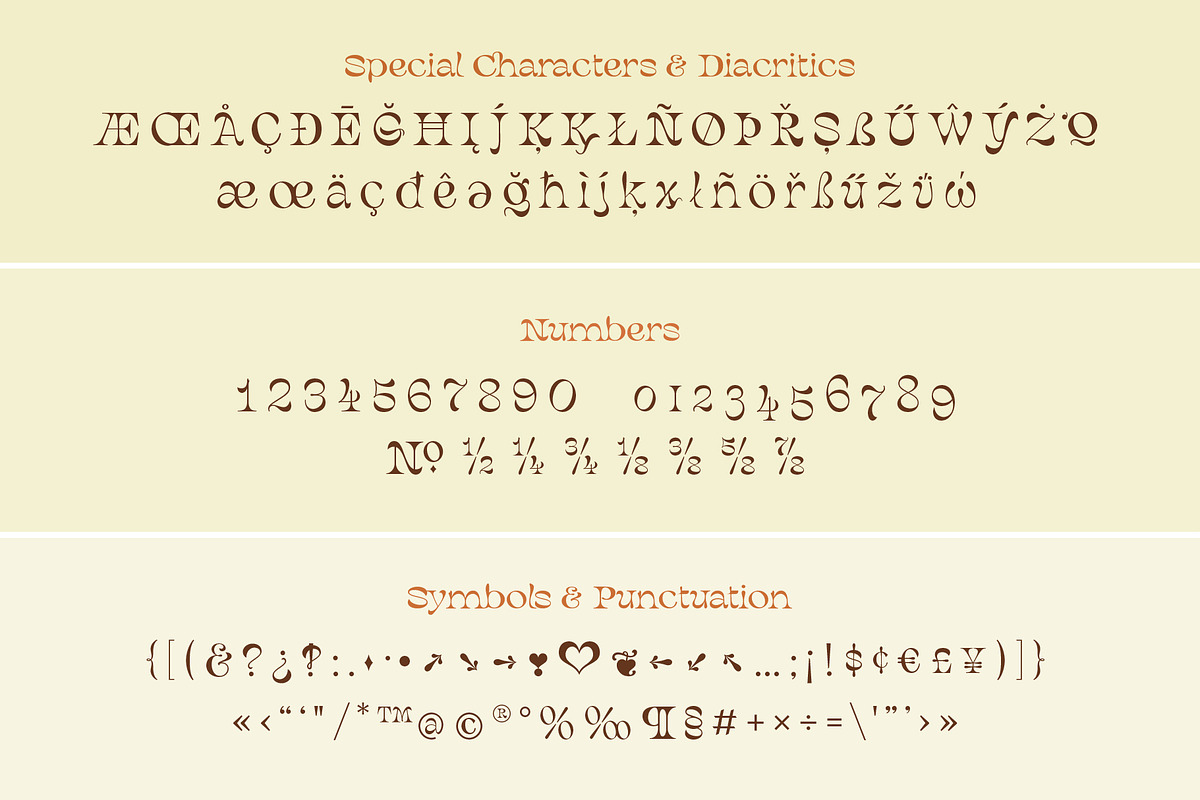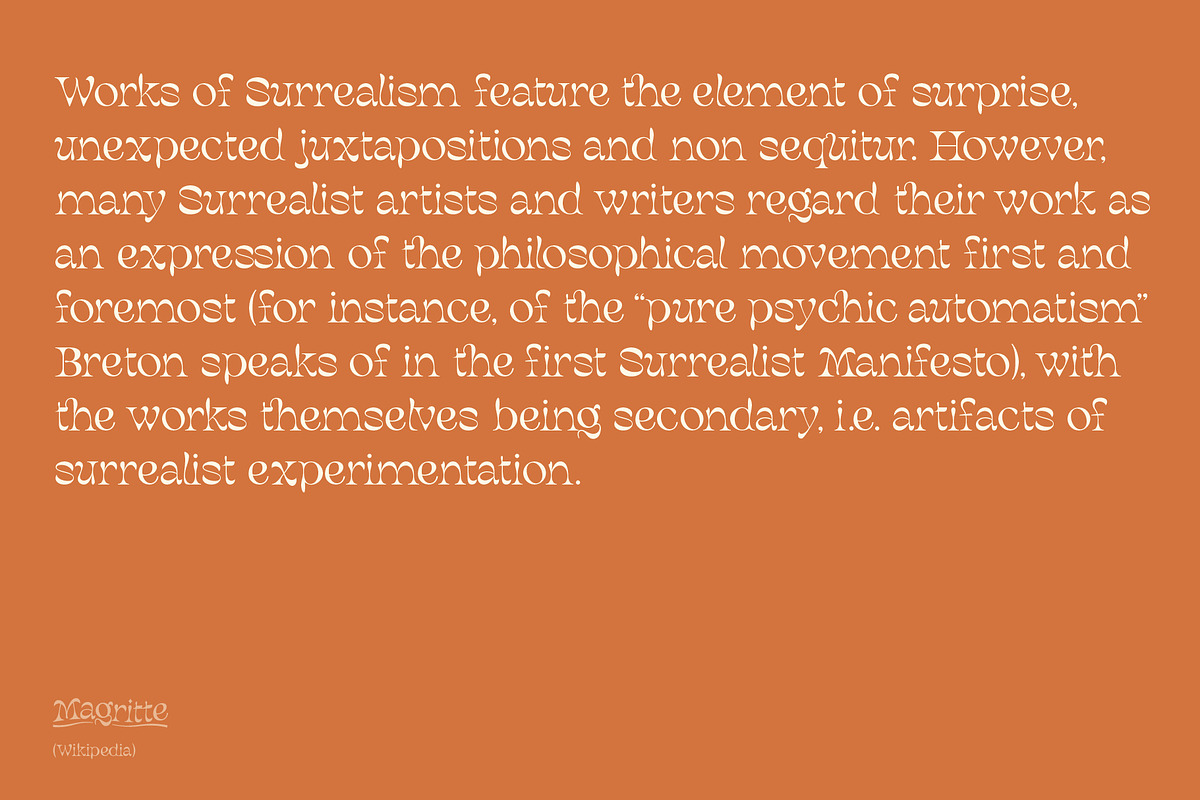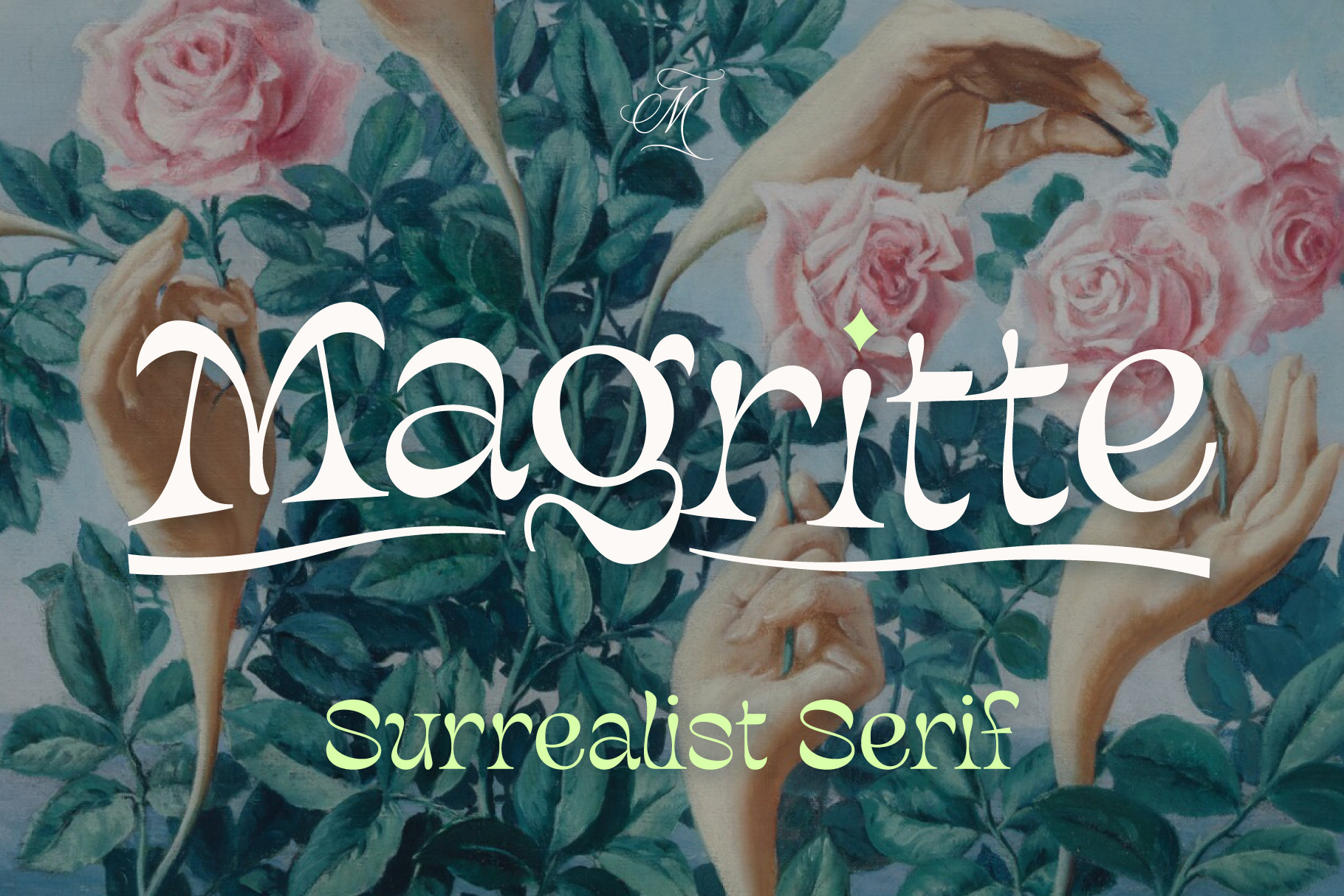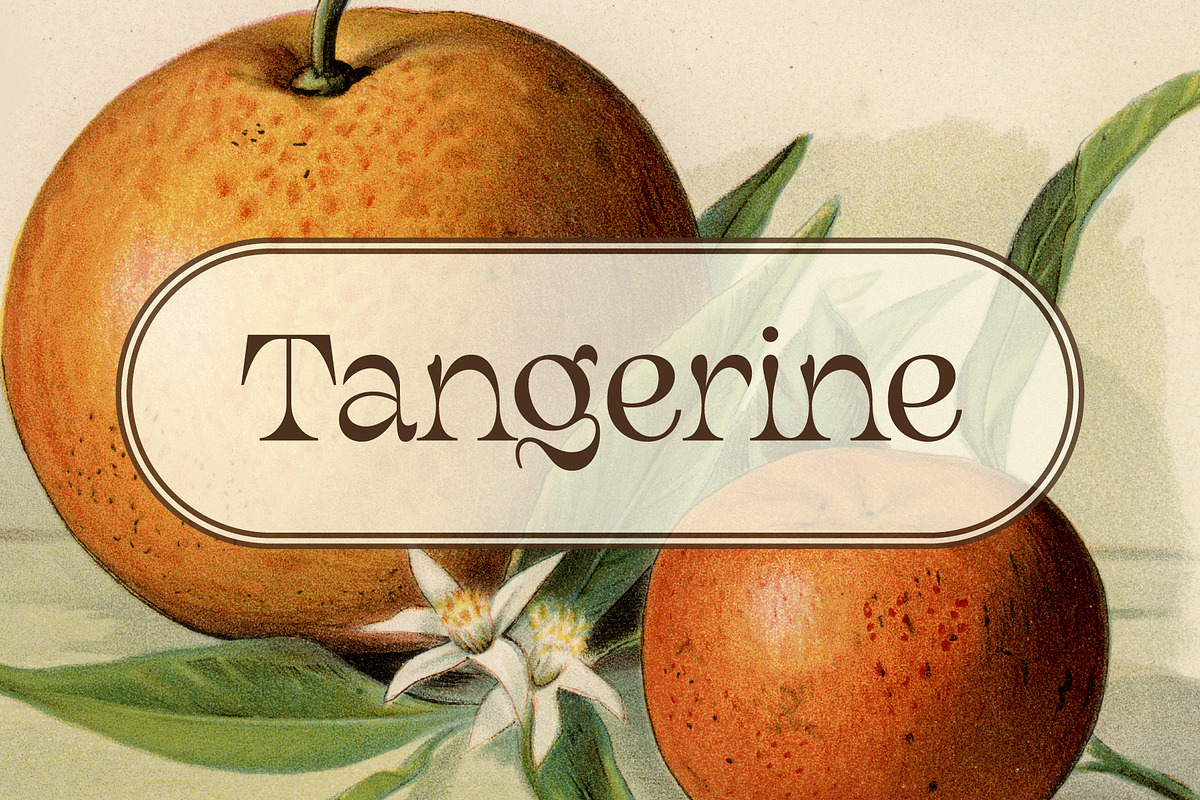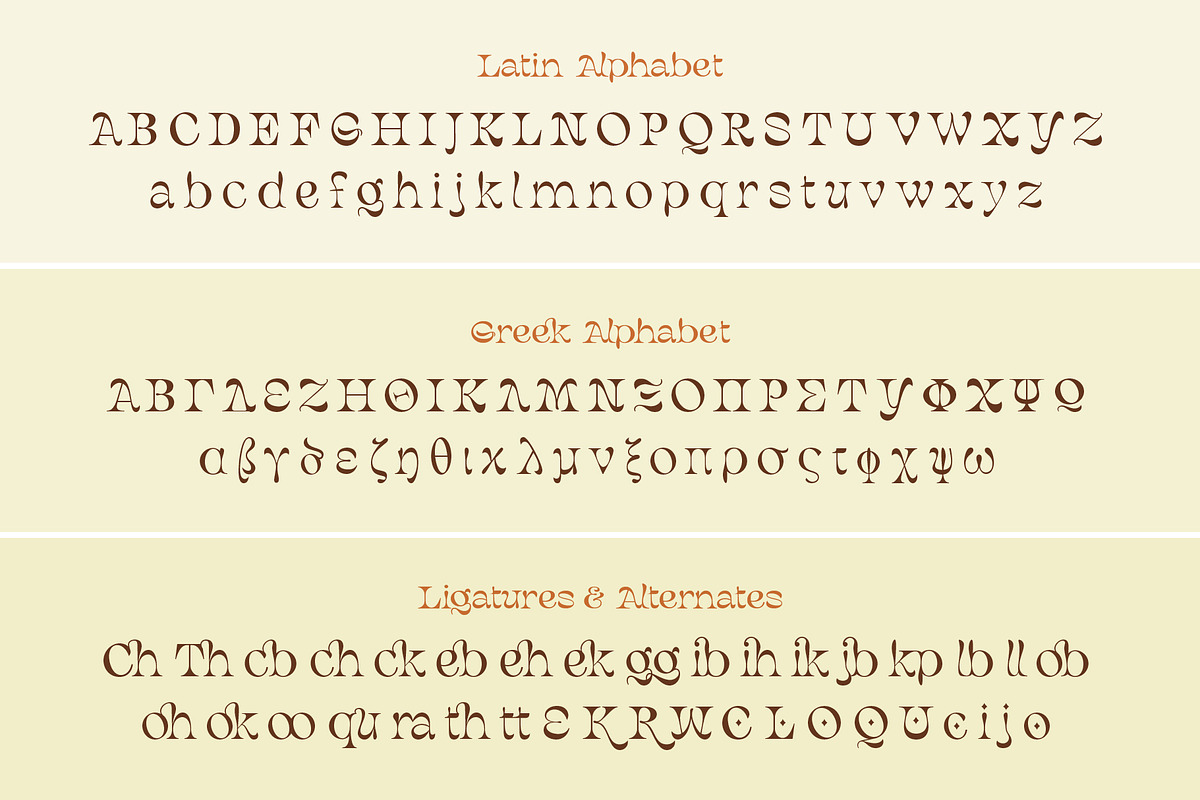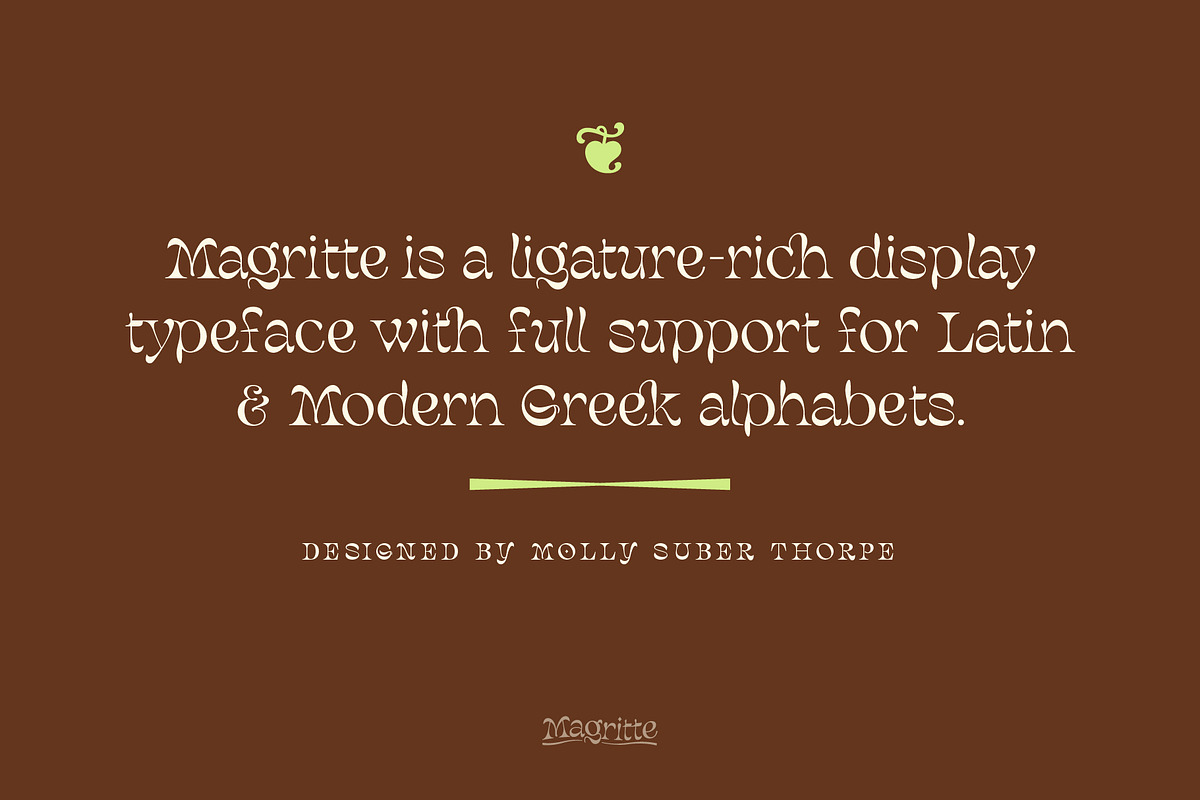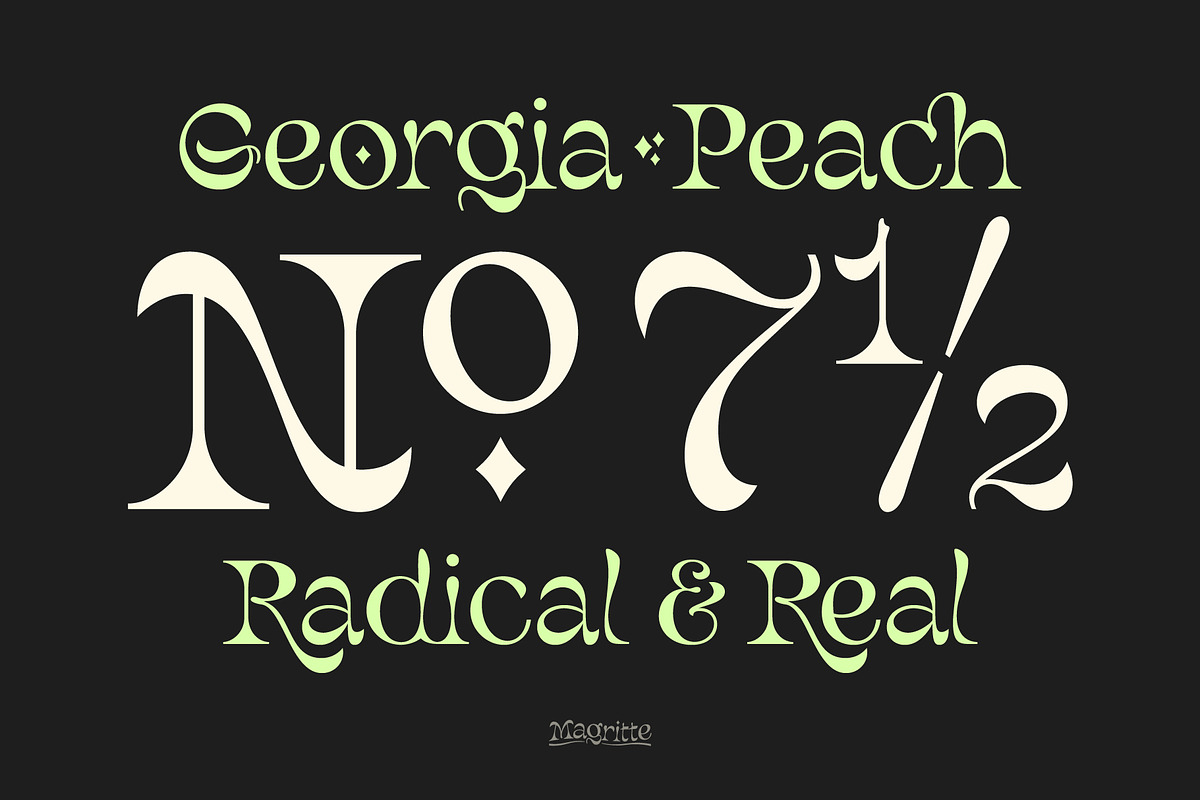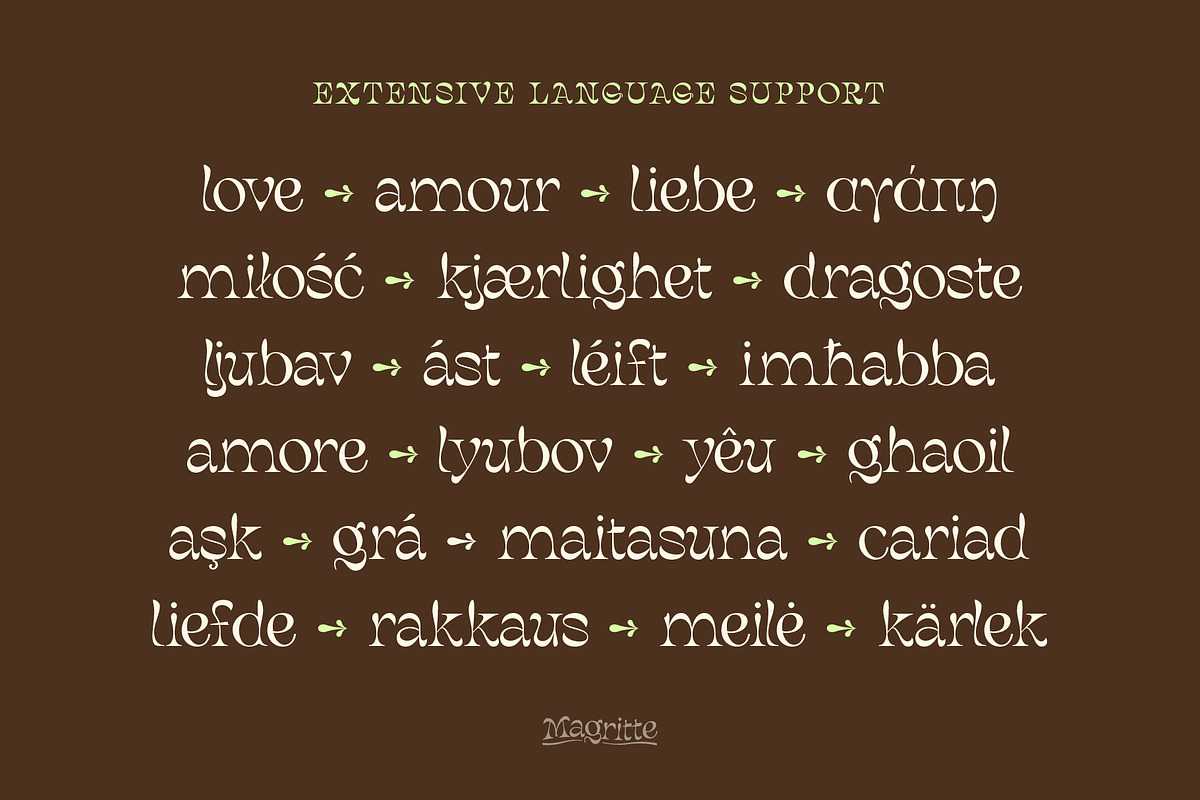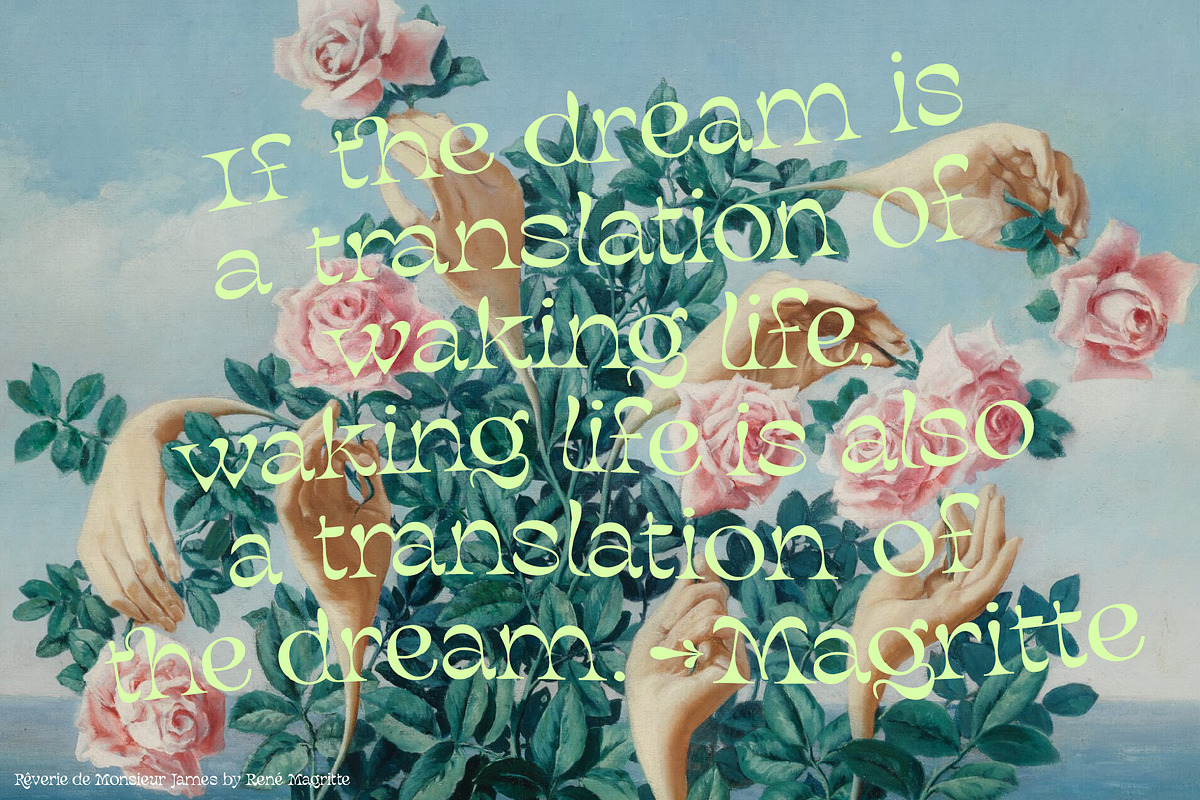
Magritte Surrealist Serif Font
Magritte is a serif display font with surrealist sensibilities. This is an ideal font for dreamy, unexpected branding, advertising, and merch.
It has uppercase and lowercase alphabets, dozens of beautiful ligatures and dingbats, and even includes support for Modern Greek.
Magritte has 600 glyphs in Latin and Greek consisting of:
- the complete Latin alphabet (with all accent marks),
- the complete Modern Greek alphabet (with all accent marks),
- 50 ligatures and stylistic alternates,
- 24 fun dingbats and arrows,
- numerals including oldstyle figures and fractions,
- extensive symbols, punctuation, and diacritical markings.
The OpenType ligatures are the fun part.
Magritte supports dozens of languages which use the Latin and Greek alphabets. The most common languages it supports are: English, Catalan, Croatian, Czech, Danish, Dutch, Finnish, Flemish, French, German, Modern Greek, Italian, Maltese, Norwegian, Polish, Portuguese, Spanish, and Swedish.